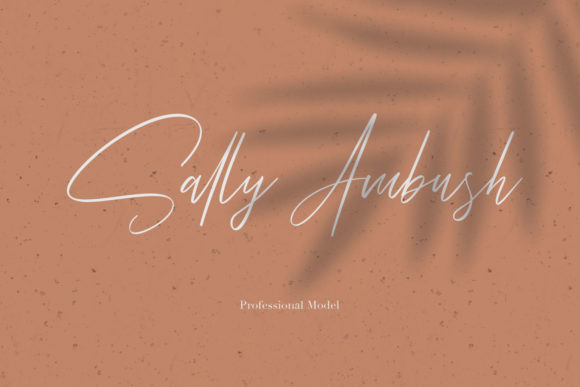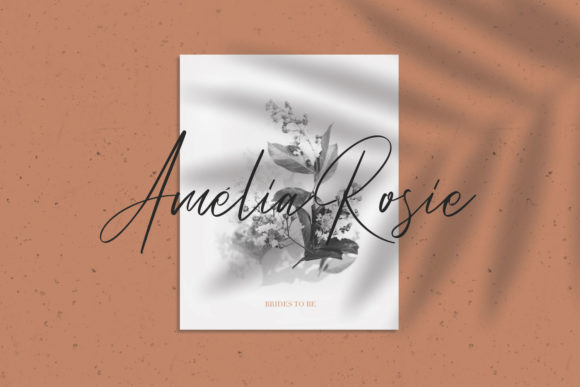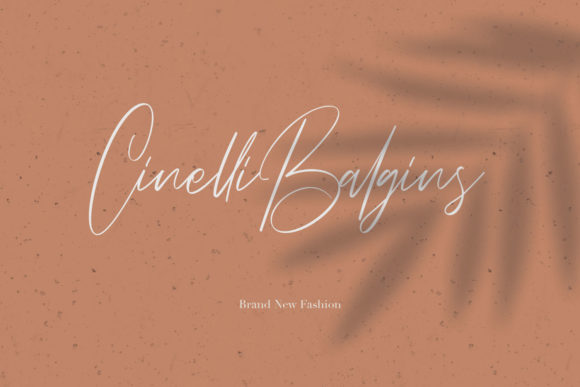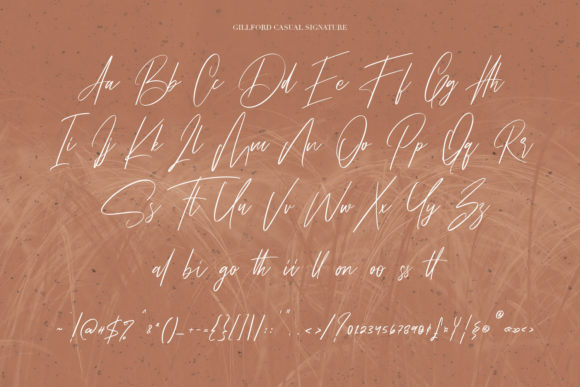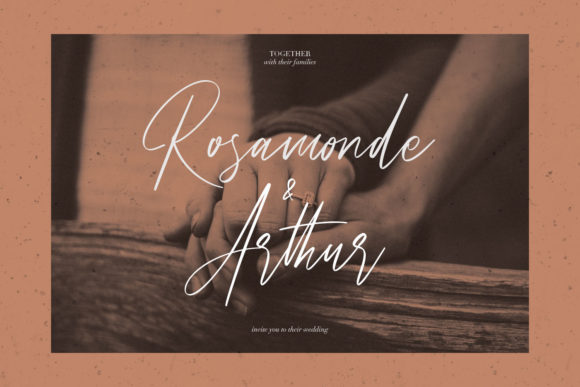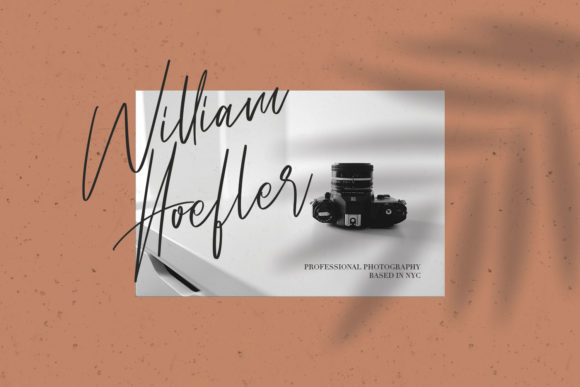
Introduction to Gillford Font
Have you ever found yourself staring at a blank canvas, desperate for the perfect font to bring your creative project to life? The search for the perfect typography can be overwhelming, but what if I told you that I’ve stumbled upon a game-changer? Introducing the enchanting Gillford Font, a magical script font that’s sure to captivate your design senses.
As a designer, you’re always on the lookout for high-quality design resources that can elevate your work and make it stand out from the crowd. The Gillford Font is an exceptional find, boasting a timeless elegance and authentic calligraphy that’s sure to add a touch of sophistication to any project. With its friendly feel and classic style, this font is perfect for designers who crave a unique and versatile typography that can be used across a wide range of creative projects.
Key Features of Gillford Font
- Characterized by its clean and modern design, the Gillford Font is perfect for a variety of creative projects, from branding and marketing materials to digital products and publications.
Honest Review: Gillford Font
I recently stumbled upon the Gillford Font, a free design resource that’s caught my attention. At first glance, its modern and elegant feel makes it perfect for creative projects that require a touch of sophistication.
- ✨ Its high-quality design ensures that it looks crisp and clear on different devices and resolutions.
- ⚠️ The font family is relatively small, with only a few weights and styles available.
- ⚠️ Some users may find the font a bit too minimalist, which might not be suitable for all types of creative projects.
Overall, I think the Gillford Font is a solid addition to any designer’s toolkit. While it may not be perfect, its strengths make it a great choice for designers who need a high-quality, modern font for their creative projects.
Tips for Getting the Most Out of Gillford Font
To get the most out of Gillford Font, consider using it on a transparent background to create a sleek and modern look. You can also use Gillford Font in combination with other design elements, such as images and graphics, to create a visually appealing design.
Common Use Cases for Gillford Font
Gillford Font is a versatile design resource that can be used in a variety of creative projects, such as business cards, brochures, and website headers. Its elegant and sophisticated style makes it perfect for use in professional and formal designs.